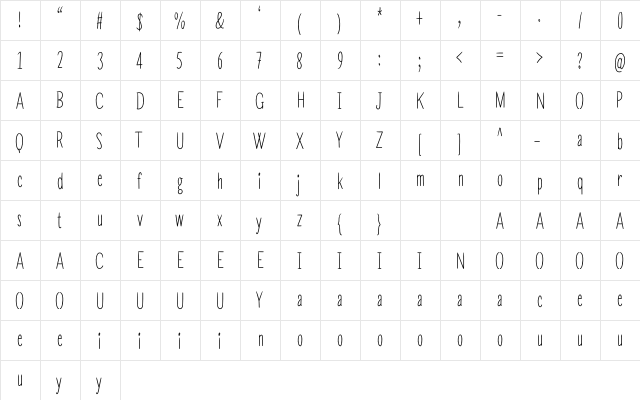
SUNRISE MINIMALIST Regular
Design Context for SUNRISE MINIMALIST Typeface
SUNRISE MINIMALIST offers clean, dependable letterforms without strong stylistic allegiance, making it a practical choice for designers who need flexibility.
Pro Tip: Use SUNRISE MINIMALIST in both headline and body roles to test its range before committing to a single application.